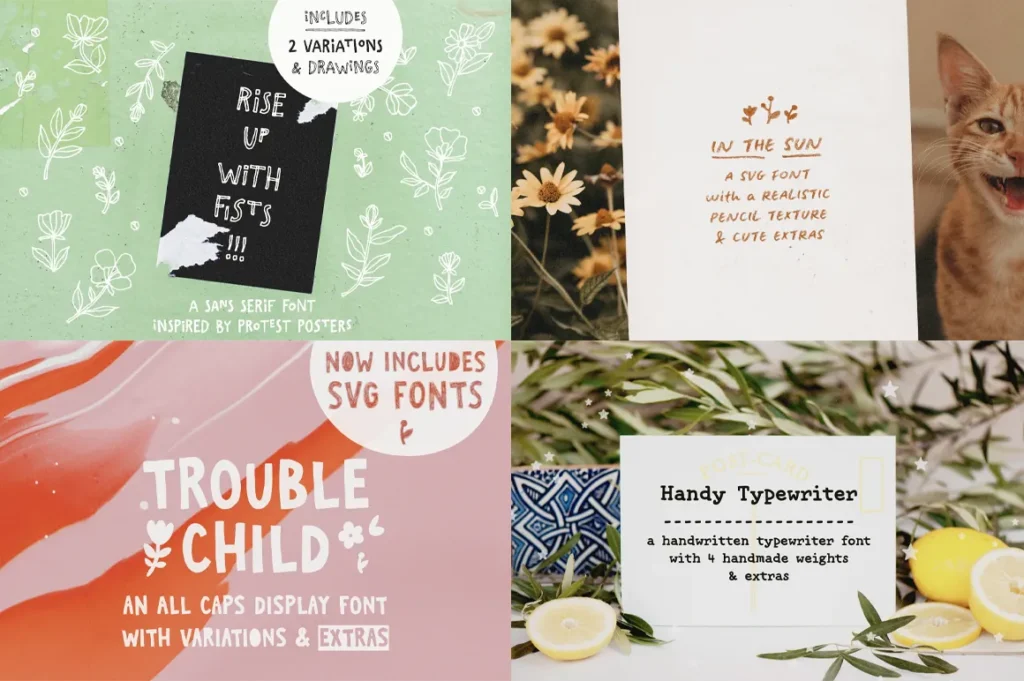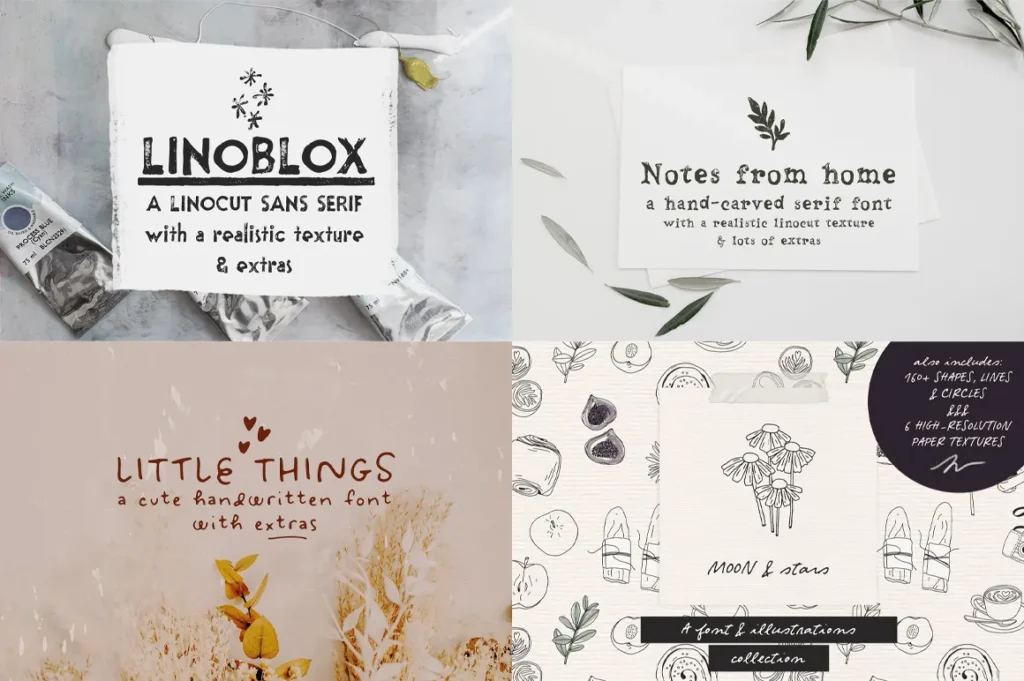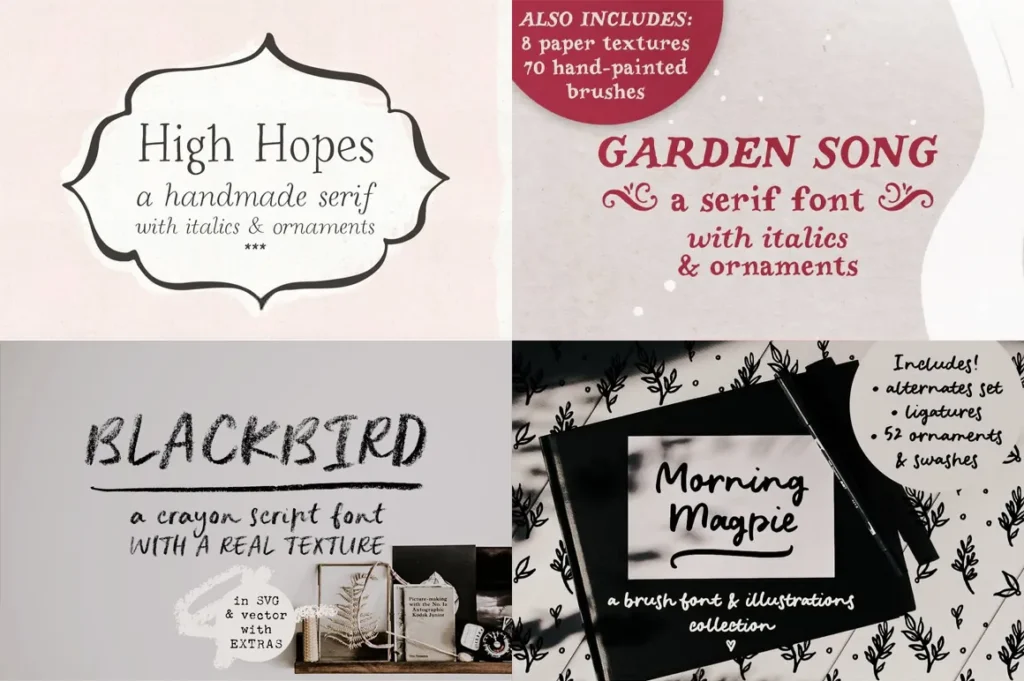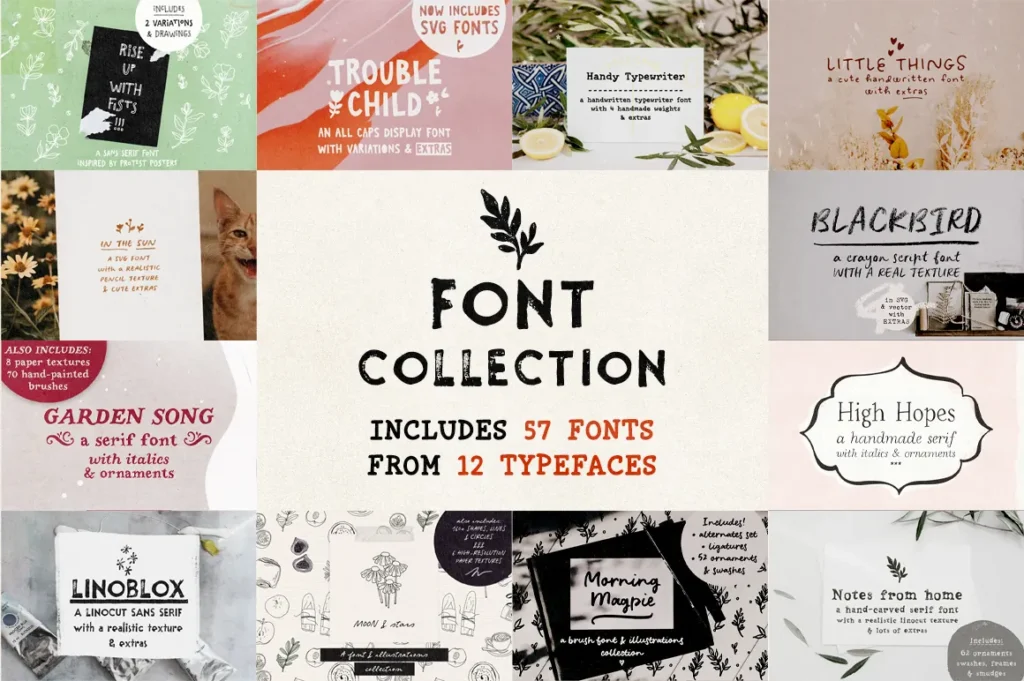
This is a collection of 12 unique typefaces from
, which include over 50 fonts!
The fonts are all handmade and range in styles from serif to sans, from handwriting to typewriter, from crayon to linocut. The fonts are unique and also include a lot of bonus goodies (that can include drawings, paper textures, video tutorials, etc.), so be sure to check the individual pages linked below for more information.
Included in this collection:
Rise Up With Fists ligature font
In The Sun handwritten SVG font
Trouble Child display SVG font
Handy Typewriter Font
Linoblox linocut sans font
Notes From Home serif font
Little Things handwritten font
Moon And Stars font & illustrations
High Hopes handmade serif font
Garden Song serif font and extras
Blackbird crayon script SVG fon
Morning Magpie brush font